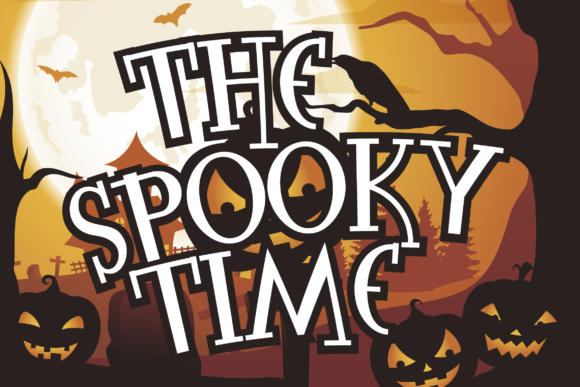
The Spooky Time font will scare up a style you'll love. This haunting display typeface will cast a spell over everything from invitations to packaging, making your words wickedly memorable.
Each character dances with spooky delight, adding an eerie elegance to any project. Whether you're conjuring up a Halloween invitation or creating a spellbinding logo, The Spooky Time will make your words leap off the page.